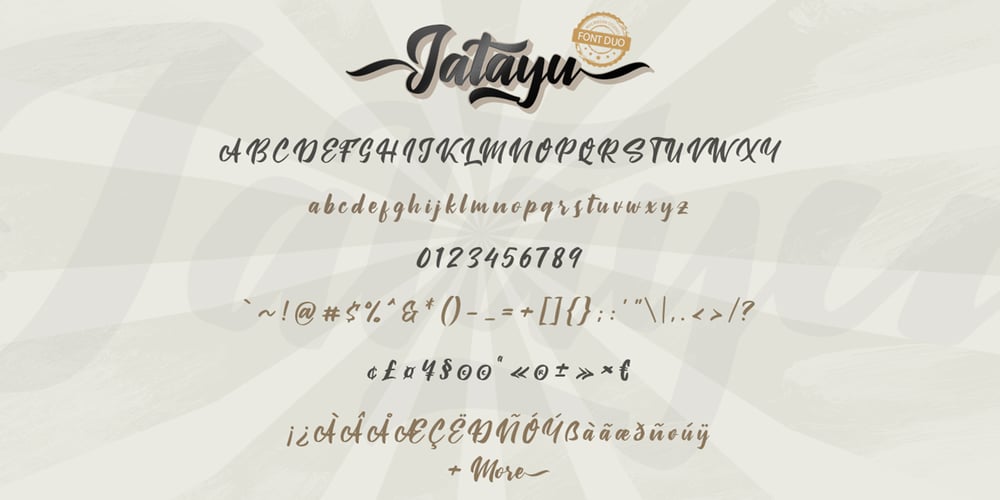
Jatayu Font Family was designed by Syaf Rizal and published by Khurasan. Jatayu contains 2 styles and family package options. Jatayu is a fun bold script font, with a fresh and modern style. Jatayu has two different styles, regular and extrude. You can combine regular and extrude to get amazing results. Jatayu is suitable for logos, branding, greeting cards, posters and any design that you create.